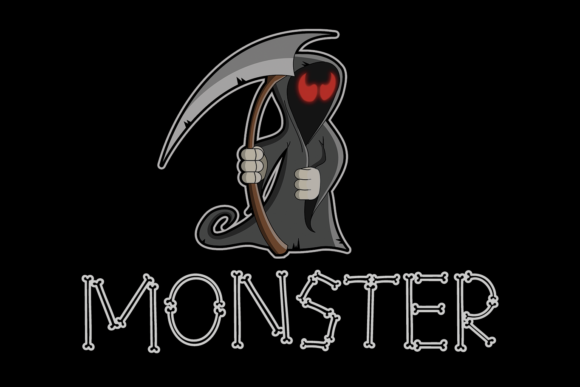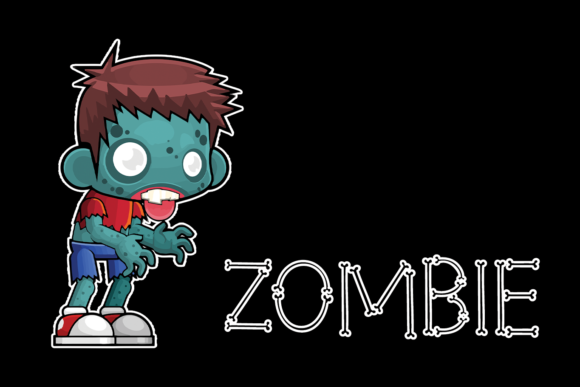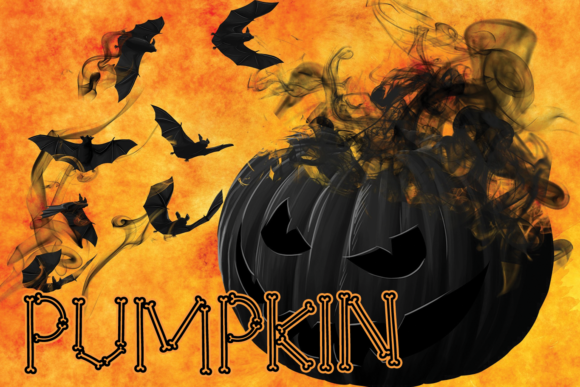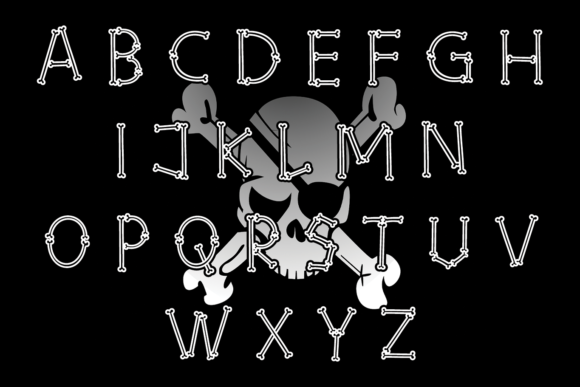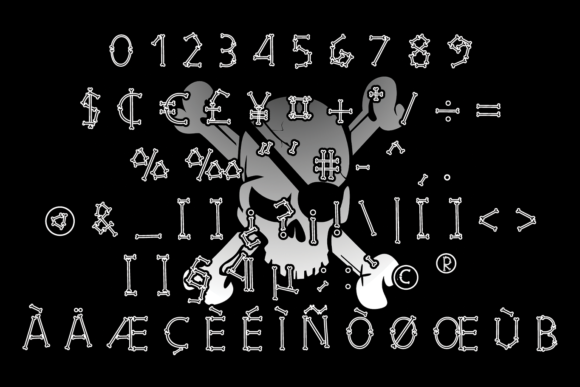
Bones Font: The Spooky yet Stylish Display Font for Your October Designs
As the leaves change colors and the nights grow cooler, designers and crafters alike start to think about creating spooky and seasonal content for October. Whether you’re working on a Halloween-themed project, a fall-inspired design, or simply looking for a font that can add a touch of eeriness to your work, the Bones Font is an excellent choice. This creepy and cool-looking display font is simple yet packs a strong visual effect that will instantly elevate your creations.
What Makes Bones Font Stand Out?
Bones Font is not just another font; it’s a statement piece. Its unique design combines simplicity with a haunting aesthetic that’s perfect for October designs. Here are a few reasons why Bones Font stands out:
- Creepy yet Cool: Bones Font strikes the perfect balance between being spooky and stylish. Its design is creepy enough to set the mood for Halloween or any fall-themed project but cool enough to be used in a variety of creative contexts.
- Simple yet Impactful: The font’s simplicity is one of its strongest assets. It’s easy to read and understand, making it versatile for various design projects. However, its design elements also give it a strong visual effect that can make your creations stand out.
- Perfect for October Designs: Whether you’re designing invitations for a Halloween party, creating fall-themed social media graphics, or working on a personal project that requires a seasonal touch, Bones Font can add that extra layer of appeal.
How to Use Bones Font in Your Designs
Using Bones Font in your designs is straightforward, and its versatility means it can be applied to a wide range of projects. Here are some ideas on how to incorporate Bones Font into your work:
- Halloween Invitations and Party Decor: Create spooky yet inviting Halloween party decorations and invitations that will set the tone for a memorable night.
- Fall-themed Social Media Graphics: Elevate your social media posts with fall-themed graphics that incorporate Bones Font. It’s a great way to engage your audience with seasonal content.
- DIY Crafts and Projects: If you’re into crafting, consider using Bones Font for your DIY projects. It can add a personalized and seasonal touch to your handmade crafts.
- Graphic Design Projects: Beyond seasonal projects, Bones Font can be used in a variety of graphic design contexts where a unique, eye-catching font is needed.
Tips for Maximizing the Impact of Bones Font
- Pair with Complementary Fonts: For best results, pair Bones Font with fonts that complement its unique style. A simple, clean font can provide a nice contrast and enhance readability.
- Experiment with Colors: Don’t be afraid to experiment with different colors. While traditional Halloween colors like orange, black, and purple are great, Bones Font can also look fantastic with other fall-inspired color palettes.
- Play with Textures and Effects: Adding textures or effects to your Bones Font text can further enhance its visual impact. Consider using gradients, shadows, or textures that match the fall or Halloween theme.
Bones Font is a versatile and visually impactful display font that’s perfect for adding a touch of spookiness and style to your October designs. Its simplicity, combined with its strong visual effect, makes it an excellent choice for designers and crafters looking to create engaging and seasonal content. Whether you’re working on Halloween-themed projects, fall-inspired designs, or simply looking for a unique font to elevate your work, Bones Font is sure to impress.